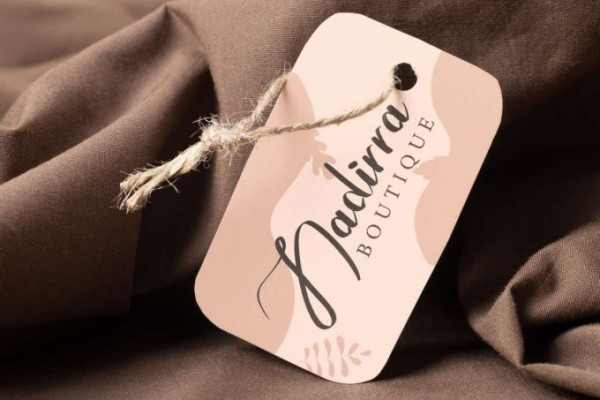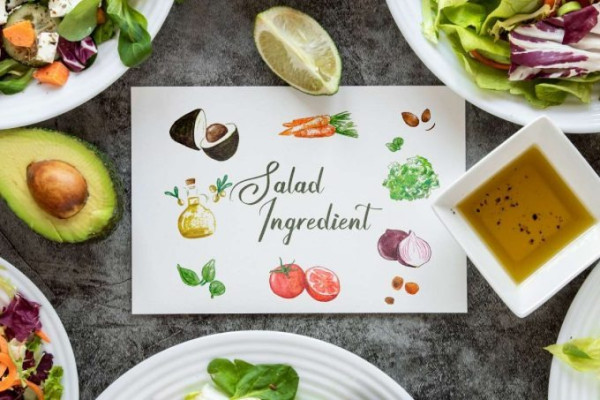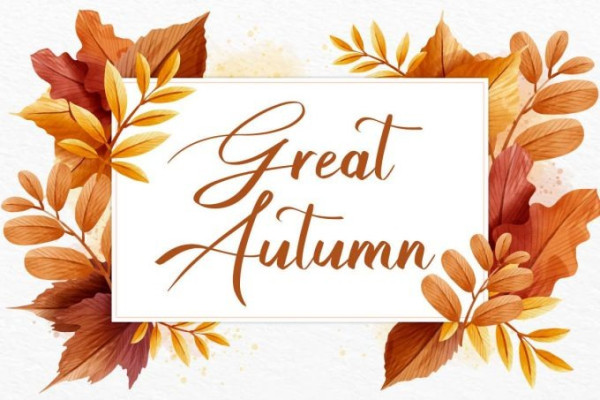
Great Autumn Font
Great Autumn Font is a beautiful script font with calligraphy style exclusively designed by VinType Studio. When you look at this font, you will feel the beauty that invites you to immediately use this font. It will be suitable for many industries, such as advertisement, beauty product, café, fashion, florist, furniture, jewelry, perfume, printing, publishing, restaurant, spa, wedding organizer, and more!
Great Autumn Font includes full set of Uppercase and Lowercase Basic Characters, Numerals and Punctuation. Also it contains Ligature and Alternate characters to make it catchy and add more aesthetic fonts to your extraordinary project, such as brand logo, brochure, catalog, custom design, frame art, invitation, label, packaging design, poster, quote, screen printing, stationery, website, etc.